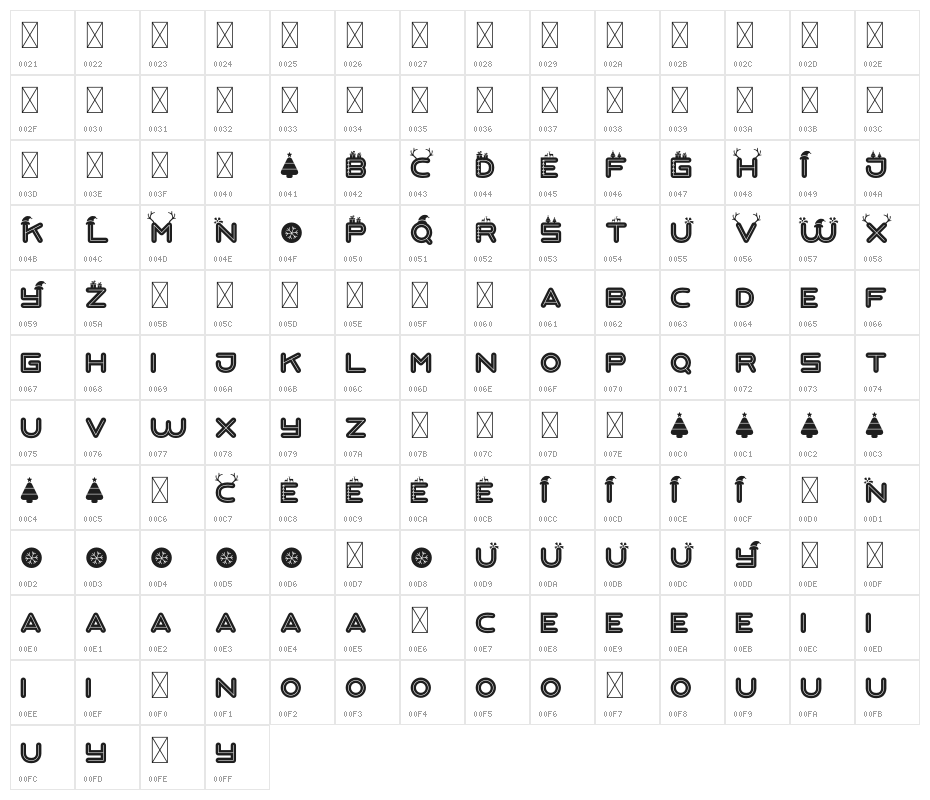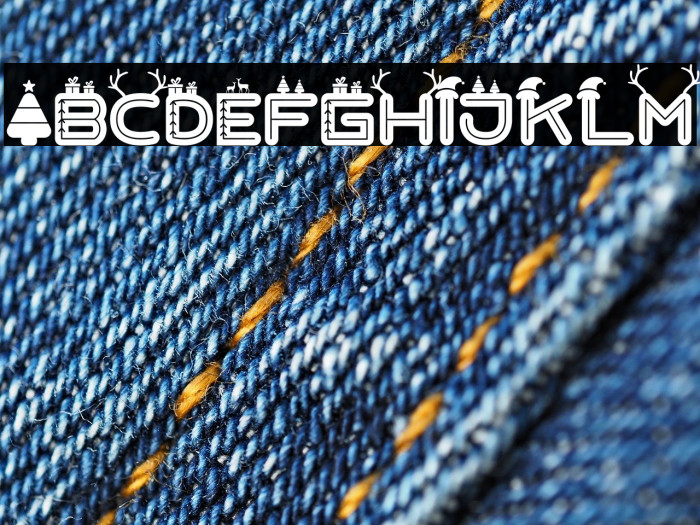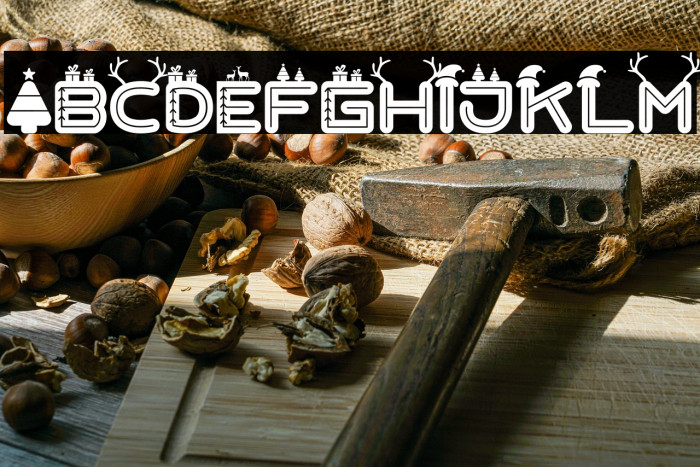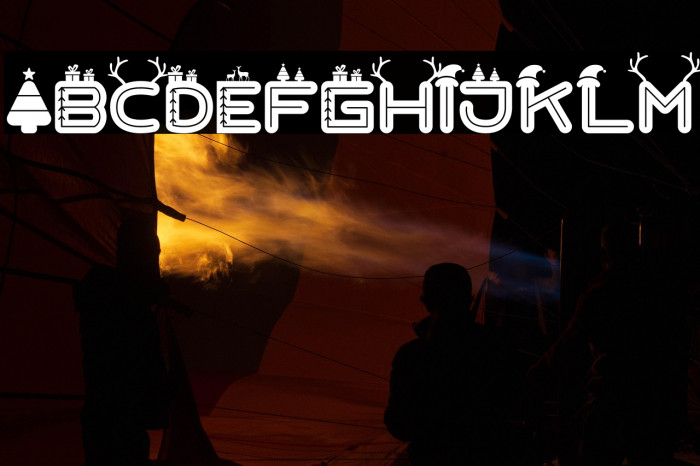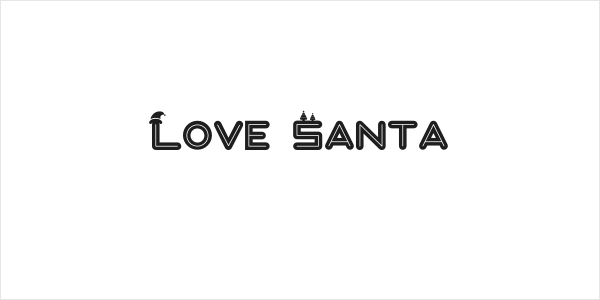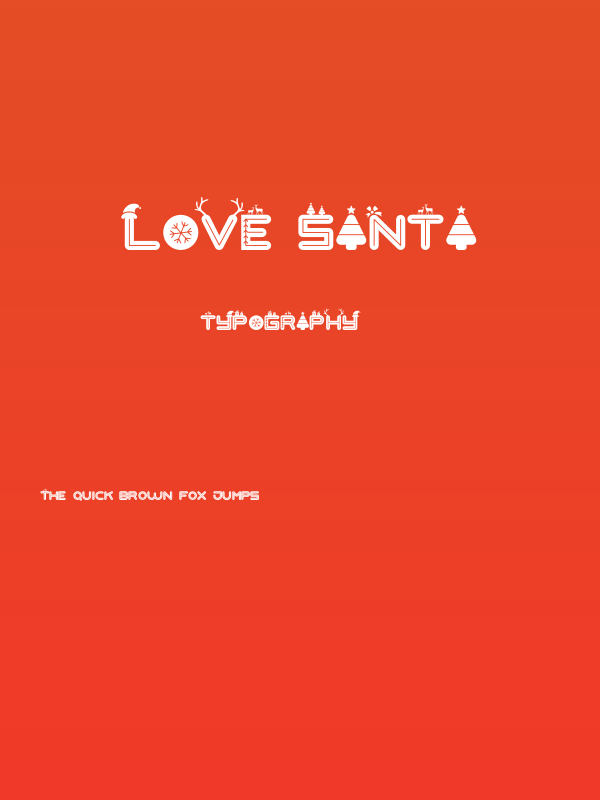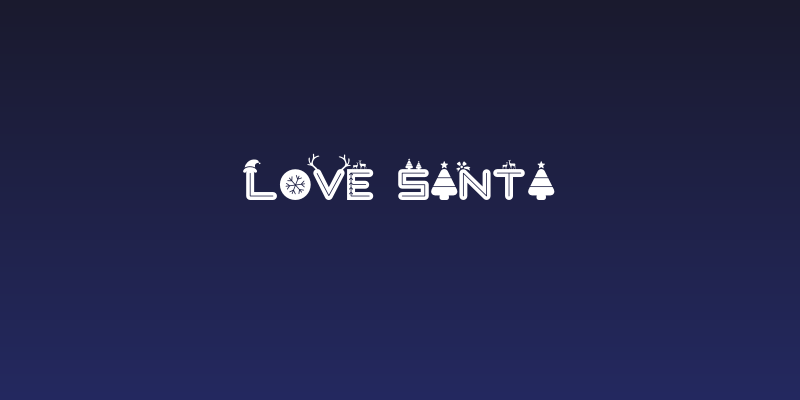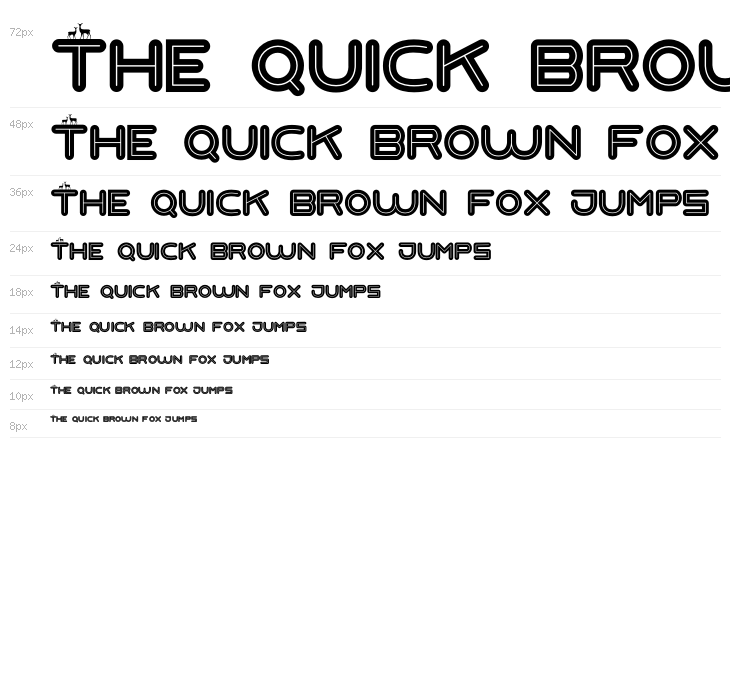
Love Santa Font
Love Santa Description
This decorative font features a playful and festive design, incorporating Christmas-themed elements such as Santa hats, snowflakes, and reindeer antlers into the uppercase letters. The bold, outlined style gives it a striking appearance, perfect for holiday-themed projects. The font maintains a consistent width and character spacing, ensuring readability while adding a whimsical touch. The lowercase letters and numbers are not present in this design, focusing solely on the embellished uppercase alphabet.
| Proposed Projects | Ideal for holiday greeting cards, festive banners, Christmas party invitations, and seasonal advertisements. |